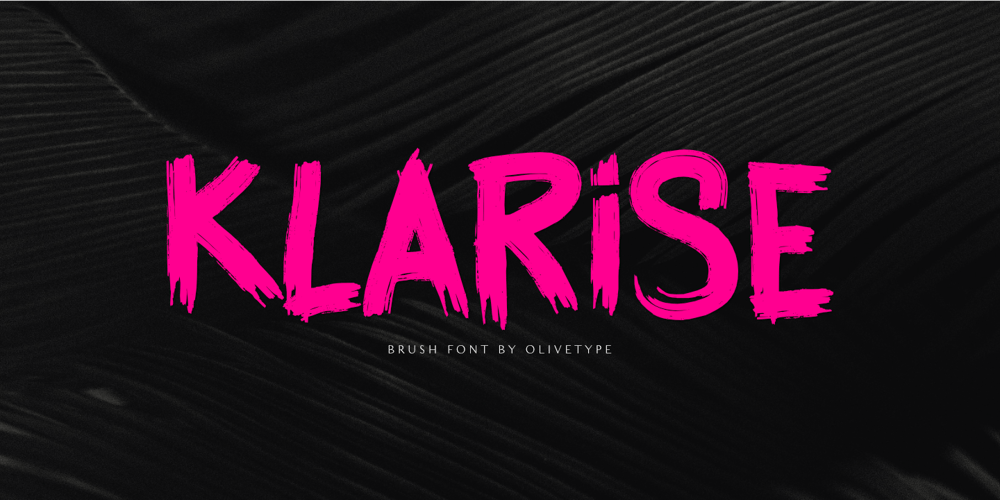
Klarise
Klarise font
Klarise Font Family was designed by Nurul Hidayani and published by Olivetype. Klarise contains 1 styles and family package options. Klarise is a cool handwritten brush font. Its informal style and casual vibe will make this font a go-to choice for each of the designs that require a relaxed touch yet strong character.So what’s included: Basic Latin A-Z & a-z. Numbers, symbols, and punctuations Multilingual Support. Accented Characters : ÀÁÂÃÄÅÆÇÈÉÊËÌÍÎÏÑÒÓÔÕÖØŒŠÙÚÛÜŸÝŽàáâãäåæçèéêëìíîïñòóôõöøœšùúûüýÿžß Thank you